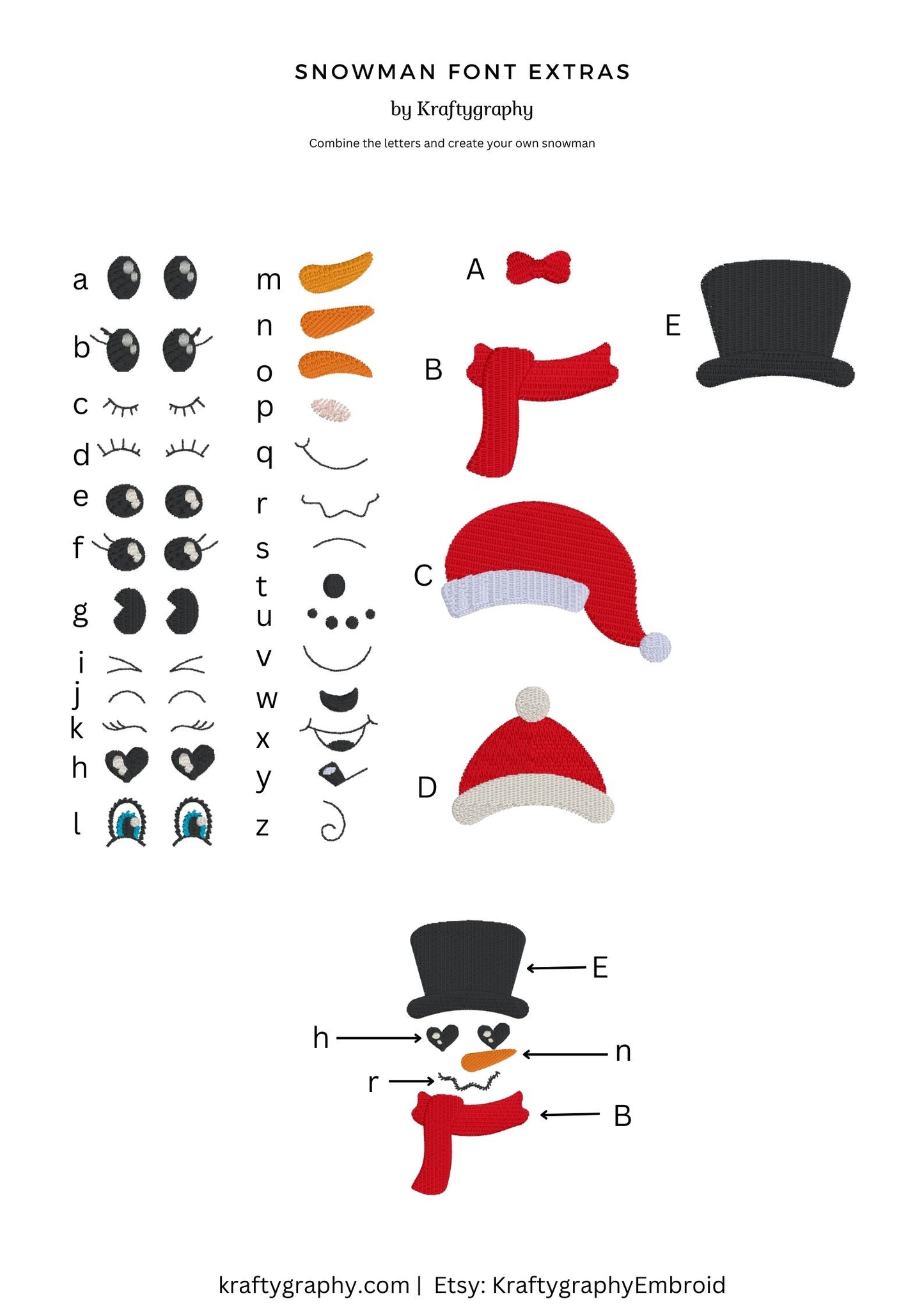
Create a Snowman Face Embroidery Font for Embrilliance – Build Your Own Snowman with Embroidery
Bring holiday magic to your embroidery projects with this Build-Your-Own Snowman Face Embroidery Font, perfect for Embrilliance (free or paid version). Each design element—eyes, carrot nose, hat, mouth, and scarf—is assigned to a letter. Just type in Embrilliance to place and arrange each part and build your custom snowman face!
Whether you're stitching festive pillows, holiday tote bags, or Christmas tree ornaments, this snowman embroidery font bundle is designed to be flexible, fun, and beginner-friendly. The full snowman face with accessories ranges in size from 3.5” to 11.5” and works with standard hoop sizes.
Great for: holiday decor, Christmas ornaments, pillowcases, kitchen towels, and gift tags